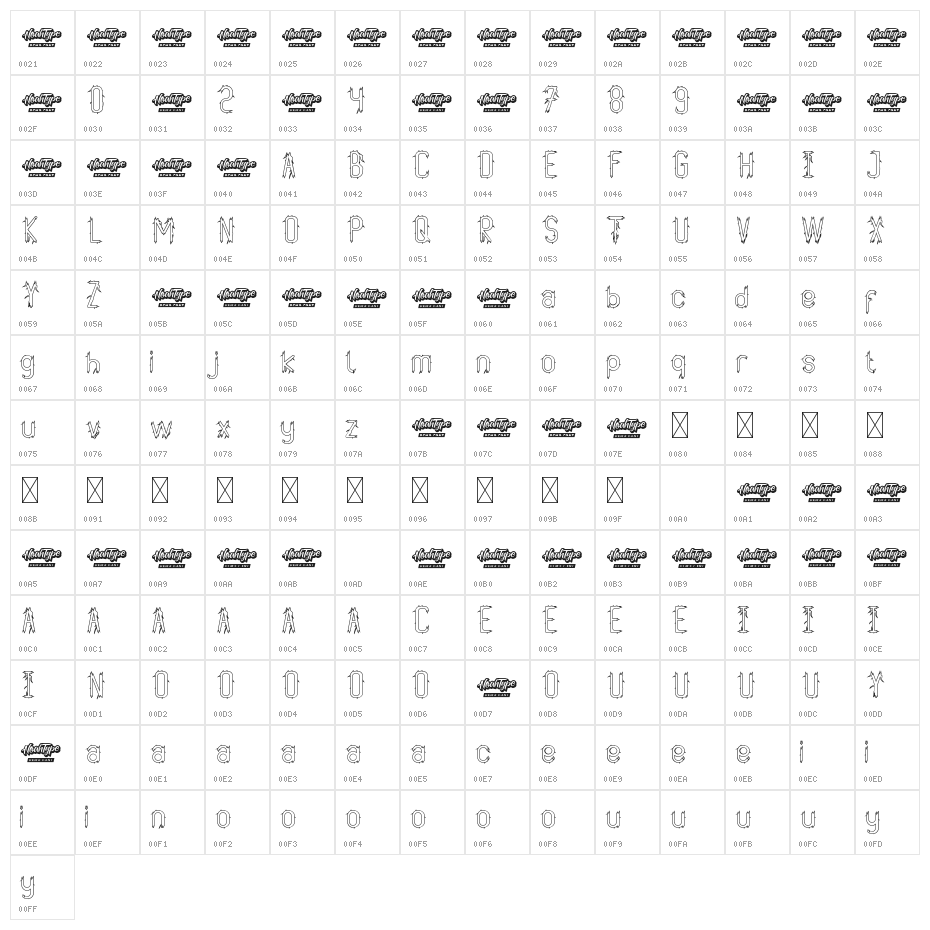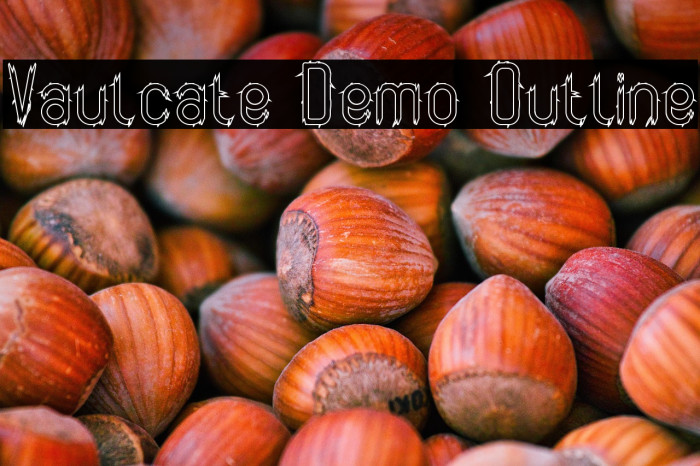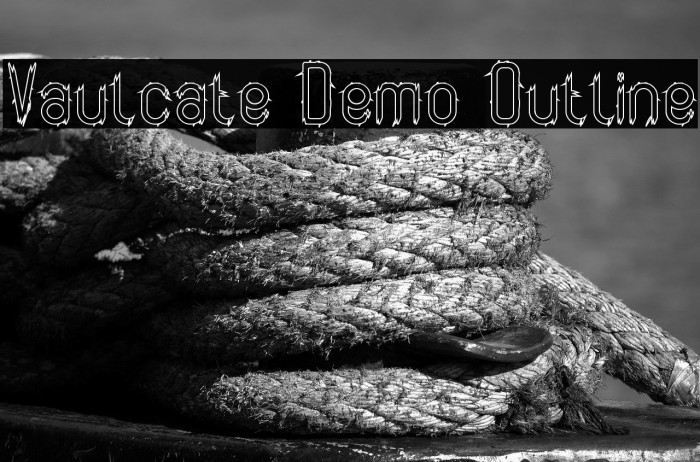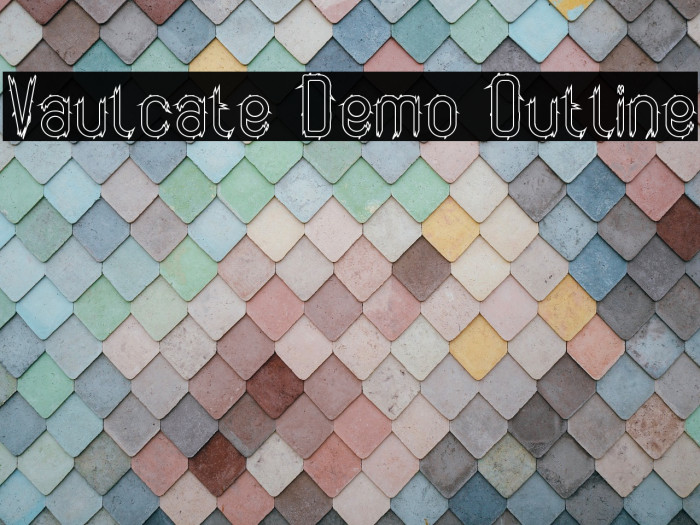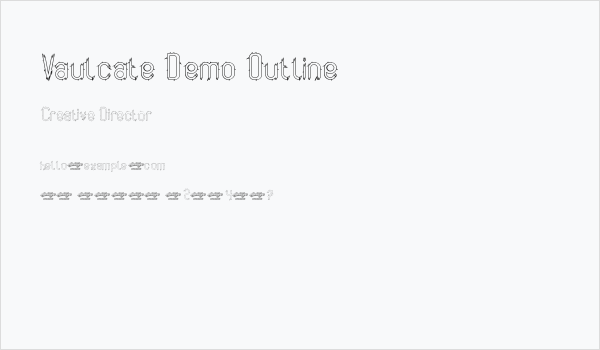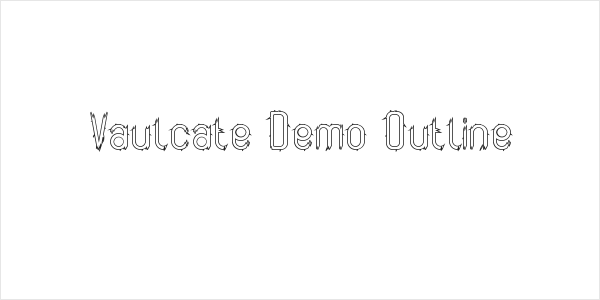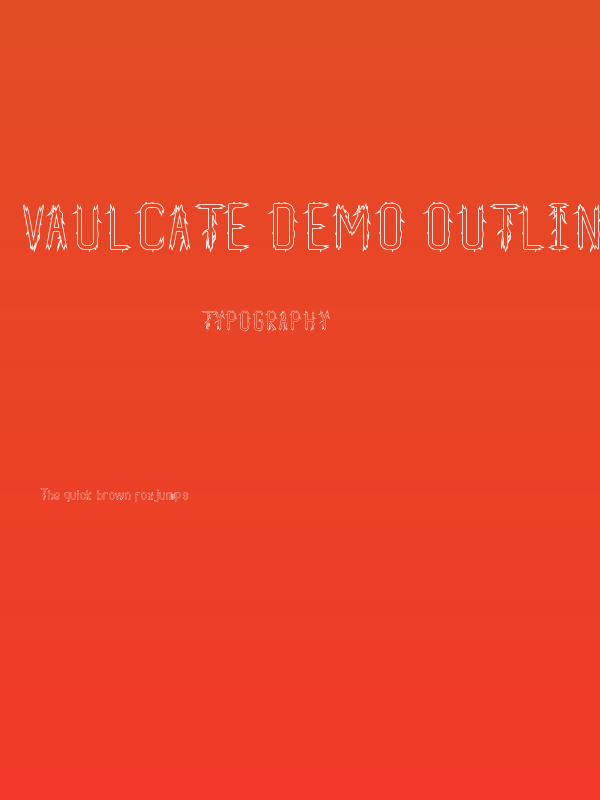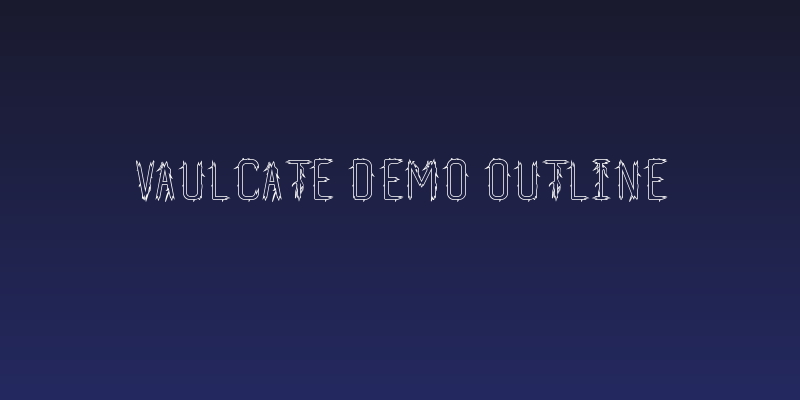
Vaulcate Demo Outline Font
Vaulcate Demo Outline Description
This font features a unique and edgy outline style, characterized by sharp, jagged edges that give it a rugged and dynamic appearance. The uppercase and lowercase letters maintain a consistent design, with each character exhibiting a bold, angular form. The numerals and special characters follow the same aesthetic, ensuring uniformity across the typeface. This font's distinctive outline and aggressive styling make it stand out, ideal for projects that require a strong visual impact.